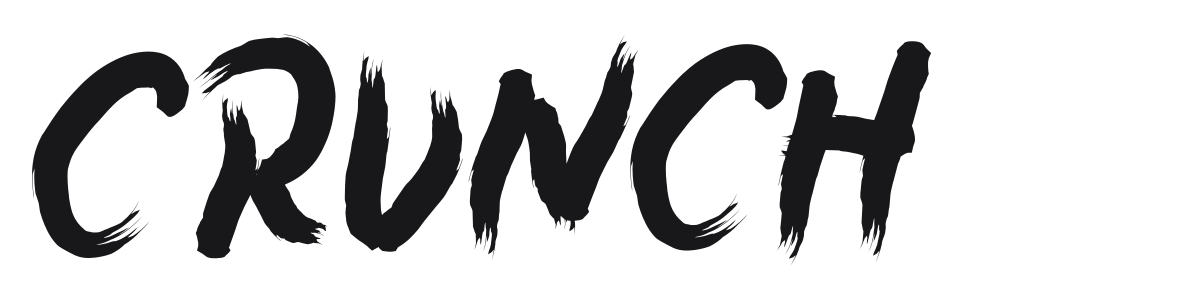
Crunch
Crunch is a bold brush script with heavy ink texture and an aggressive forward slant. Each character looks like it was fired off with a loaded brush at full speed, with frayed edges and bristle trails giving it a genuine hand-lettered rawness. It suits anywhere energy and attitude matter more than refinement.